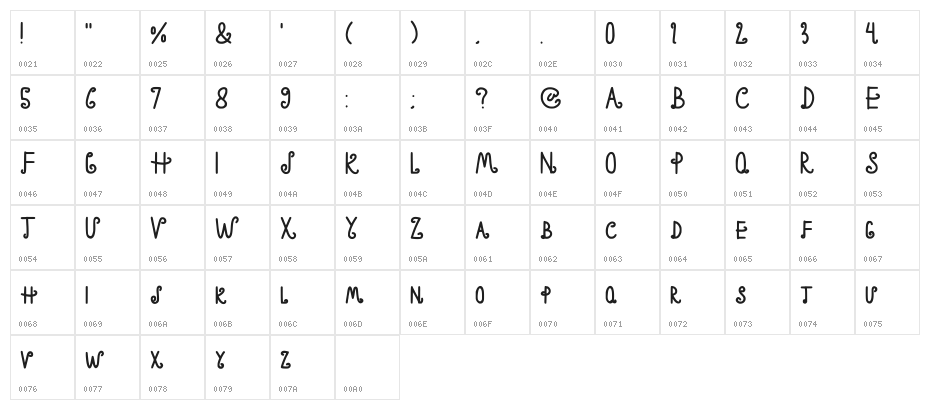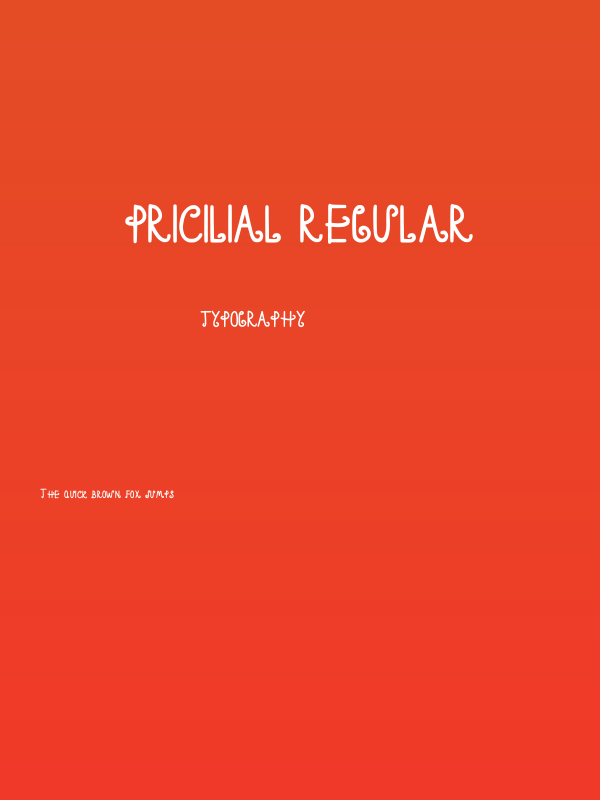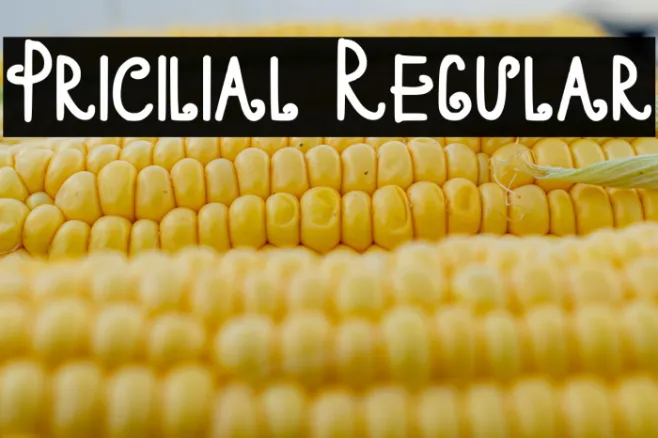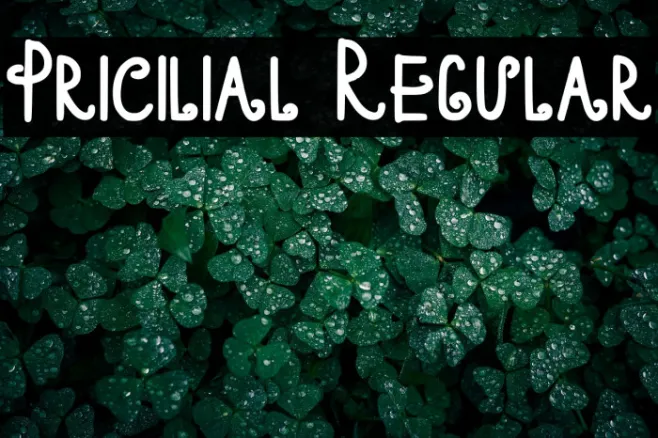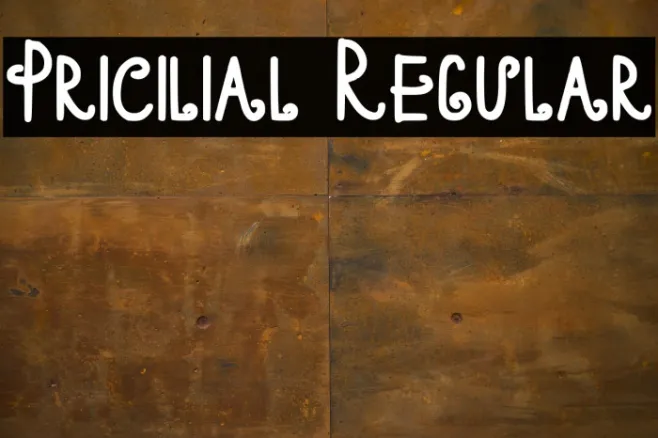
Pricilial Regular Font
Pricilial Regular Description
This font features a playful and whimsical design with rounded, looped terminals that give it a unique and friendly appearance. The characters are bold and have a consistent stroke width, contributing to a cohesive look. The uppercase and lowercase letters maintain a consistent style, with the lowercase letters slightly smaller in size but equally expressive. The numbers are designed to match the playful style of the letters, making them easily readable while retaining the font's overall charm. The special characters are well-integrated, ensuring that they complement the alphabetic characters seamlessly.
| Proposed Projects | Ideal for children's books, playful branding, greeting cards, and creative posters. |